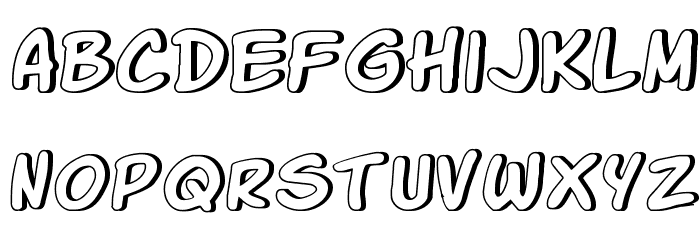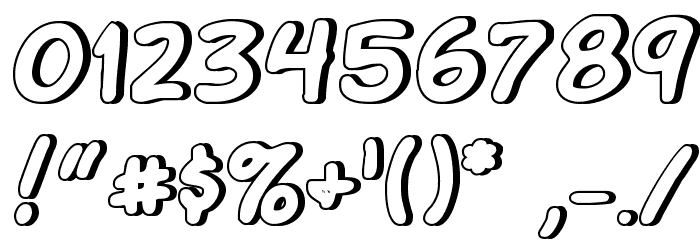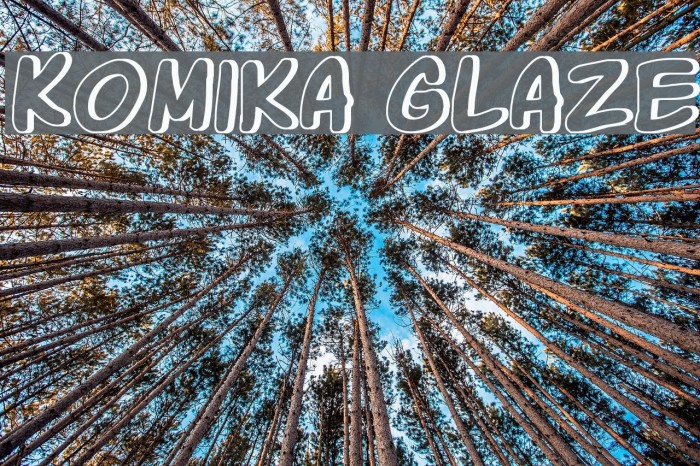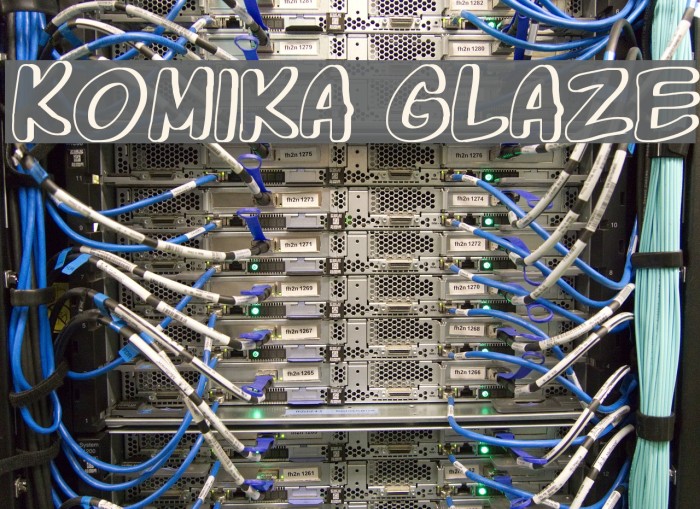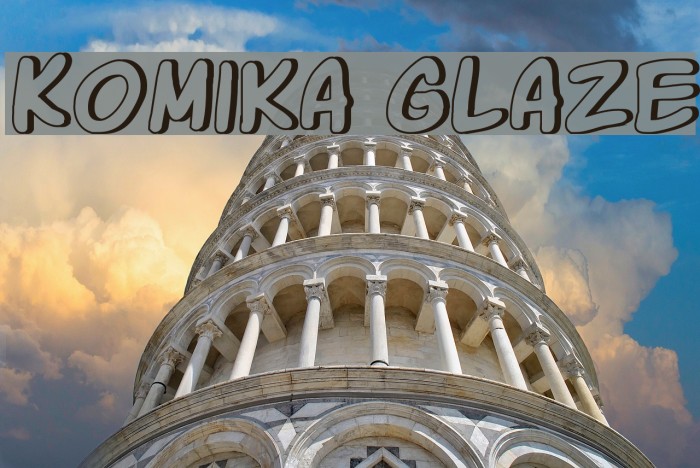
Komika Glaze Font
This playful and bold font features a cartoonish style with thick, rounded edges and a slightly irregular form, giving it a hand-drawn appearance. The letters are outlined, adding a dynamic and eye-catching effect. The uppercase and lowercase characters maintain a consistent style, with a slight slant that adds movement and energy. The numbers and special characters follow the same design principles, ensuring uniformity across all elements. This font's whimsical nature makes it ideal for projects that require a fun and engaging visual impact.
A playful, bold, and cartoonish font with thick, rounded edges and outlined characters.
- Proposed Projects: Ideal for comic books, children's books, playful branding, and fun posters.
- Overall Style: Playful, Cartoonish